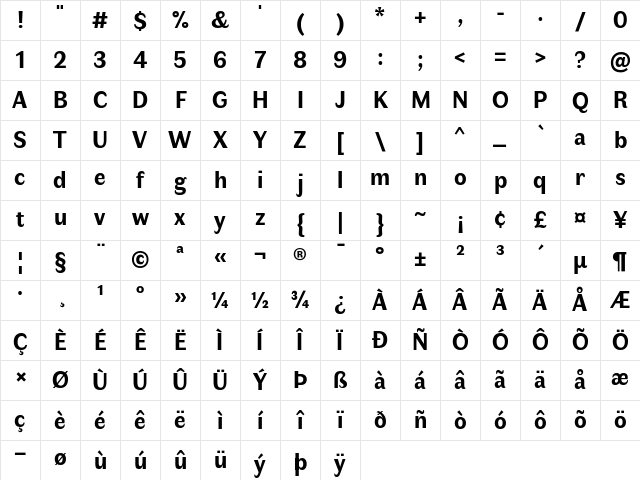
Faune Text Bold Free Font
Faune Text Bold
Foundry: Centre national des arts plastiques
Designer: Alice Savoie
Faune Text Family
Design Context for Faune Text
Faune Text is a composed and adaptable typeface that performs quietly and consistently across a wide range of design contexts. Its bold stroke weight gives it real presence on the page.
Who designed the Faune Text Bold font?